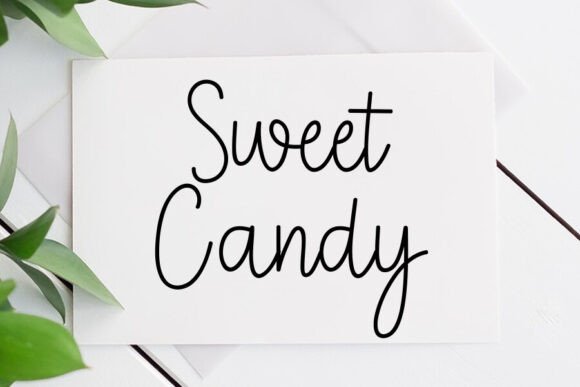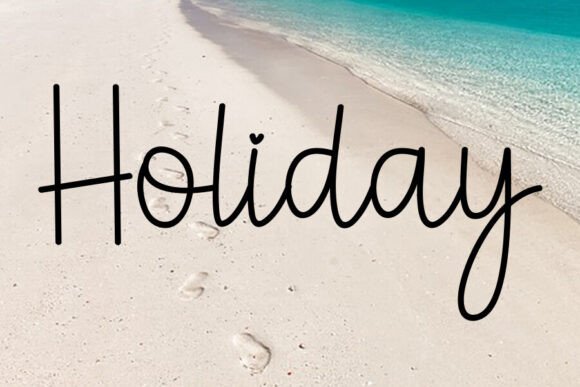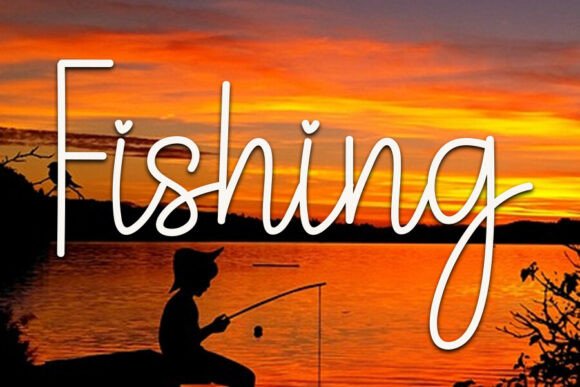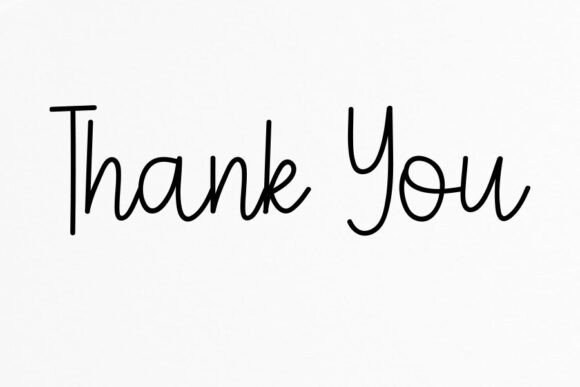
Cowgirl Font: A Simple yet Versatile Handwritten Font for Your Creative Projects
Are you a designer, crafter, or DIY enthusiast looking for a font that can add a touch of simplicity and natural elegance to your projects? Look no further than the Cowgirl Font! This beautiful, handwritten font is perfect for a wide range of applications, from greeting cards and invitations to headlines and titles. In this article, we’ll explore the features and benefits of the Cowgirl Font, and show you how to make the most of this versatile and charming font.
What is Cowgirl Font?
Cowgirl Font is a simple, handwritten font that is designed to evoke a sense of rustic charm and natural elegance. With its flowing lines and whimsical feel, this font is perfect for adding a personal touch to your projects. Whether you’re creating a handmade card, a DIY sign, or a digital graphic, Cowgirl Font is sure to bring a smile to your face and a touch of warmth to your design.
Features of Cowgirl Font
So what makes Cowgirl Font so special? Here are just a few of its key features:
- Simple and Handwritten: Cowgirl Font is a handwritten font that is simple, yet elegant. Its flowing lines and whimsical feel make it perfect for adding a personal touch to your projects.
- Versatile: This font is incredibly versatile, and can be used for a wide range of applications, from greeting cards and invitations to headlines and titles.
- Natural Feel: Cowgirl Font has a natural, organic feel that is perfect for adding a touch of warmth and personality to your designs.
- Easy to Read: Despite its whimsical feel, Cowgirl Font is easy to read, making it perfect for use in both digital and print applications.
Uses for Cowgirl Font
So what can you use Cowgirl Font for? The possibilities are endless! Here are just a few ideas to get you started:
- Greeting Cards: Add a personal touch to your greeting cards with Cowgirl Font. Perfect for birthdays, holidays, and special occasions.
- Invitations: Create beautiful, handmade invitations for weddings, parties, and other events with Cowgirl Font.
- Headlines and Titles: Use Cowgirl Font to add a touch of elegance and sophistication to your headlines and titles.
- DIY Projects: Add a personal touch to your DIY projects, such as signs, banners, and other decorative items, with Cowgirl Font.
- Digital Graphics: Use Cowgirl Font to create beautiful digital graphics, such as social media graphics, blog posts, and more.
Tips for Using Cowgirl Font
Here are a few tips for getting the most out of Cowgirl Font:
- Experiment with Sizes: Cowgirl Font looks great in a variety of sizes, from small and delicate to large and bold. Experiment with different sizes to find the one that works best for your project.
- Pair with Other Fonts: Cowgirl Font pairs well with a variety of other fonts, from simple sans serifs to more decorative scripts. Experiment with different pairings to find the one that works best for your project.
- Use in Combination with Images: Cowgirl Font looks great in combination with images, such as photographs, illustrations, and graphics. Experiment with different combinations to find the one that works best for your project.
In conclusion, Cowgirl Font is a simple yet versatile handwritten font that is perfect for adding a touch of natural elegance and simplicity to your projects. With its flowing lines, whimsical feel, and ease of use, this font is sure to become a favorite among designers, crafters, and DIY enthusiasts. Whether you’re creating a handmade card, a DIY sign, or a digital graphic, Cowgirl Font is the perfect choice. So why wait? Download Cowgirl Font today and start adding a personal touch to your projects!
- Cowgirl Font is a simple, handwritten font with a natural feel.
- This font is versatile and can be used for a wide range of applications.
- Cowgirl Font is easy to read and perfect for use in both digital and print applications.
- Experiment with different sizes, pairings, and combinations with images to get the most out of Cowgirl Font.